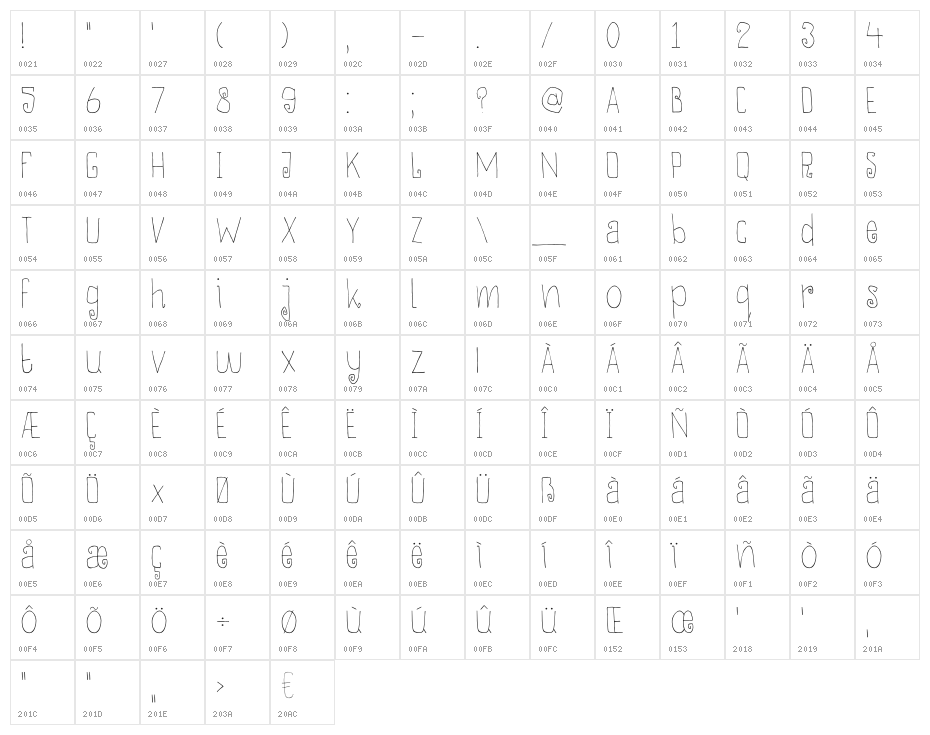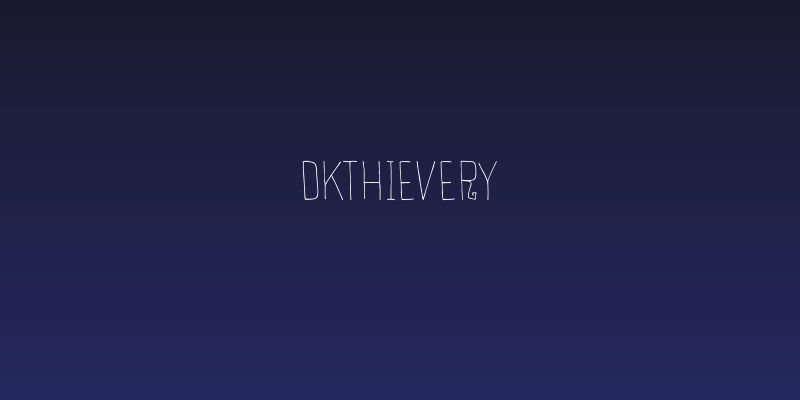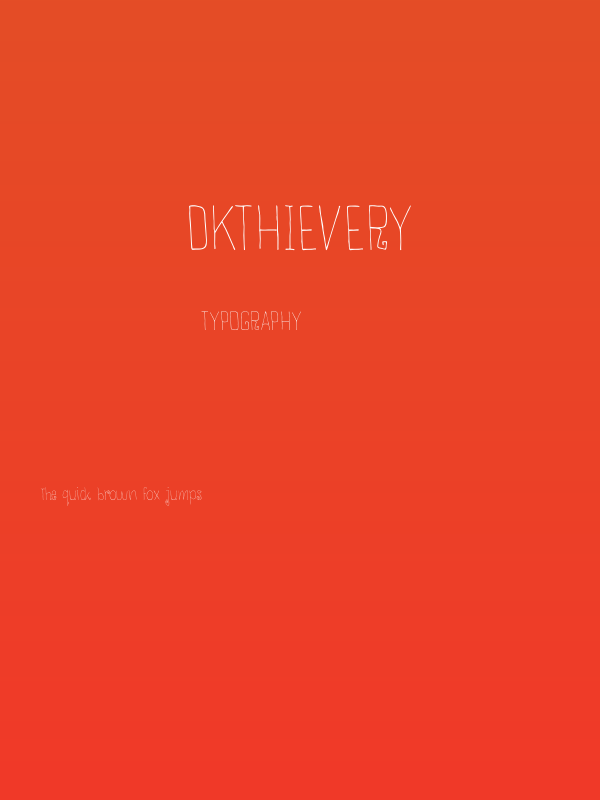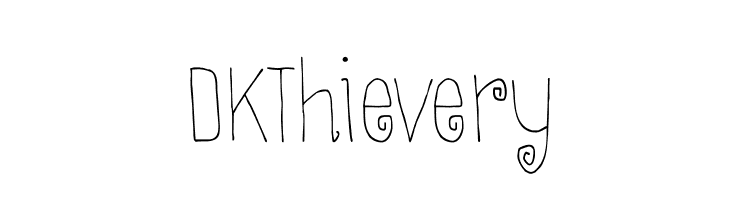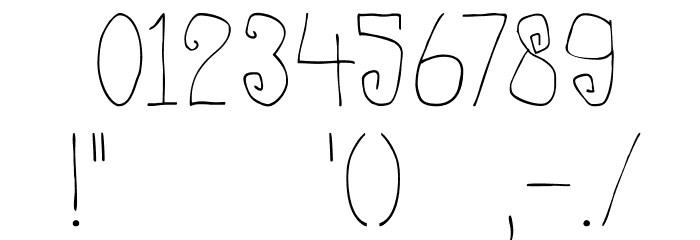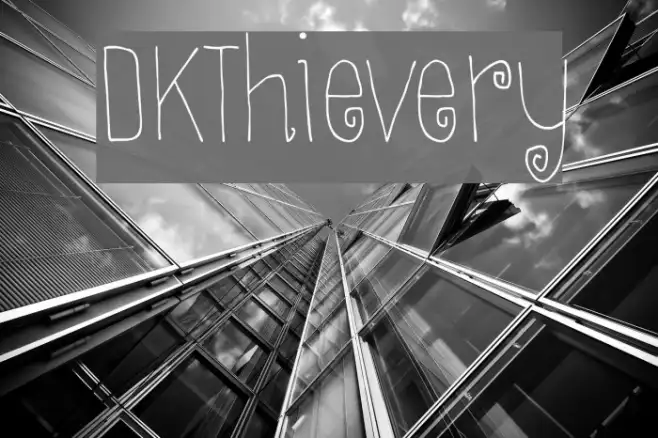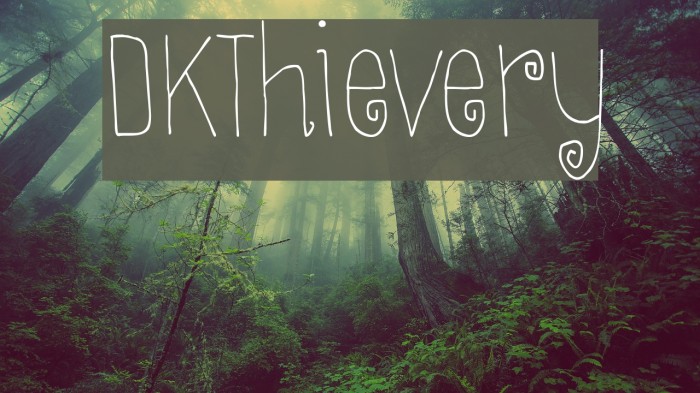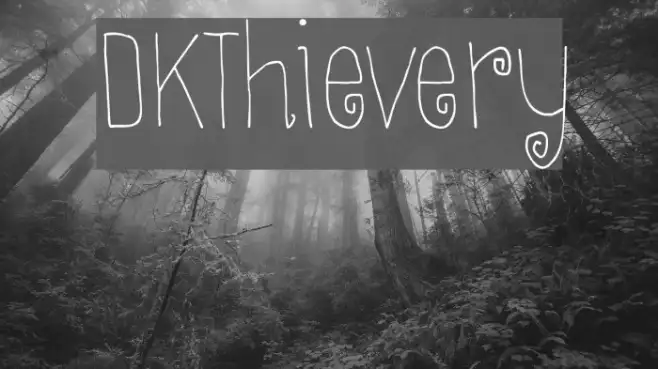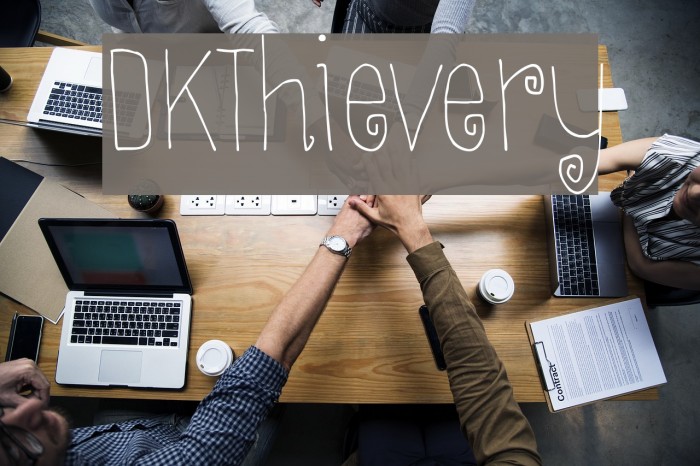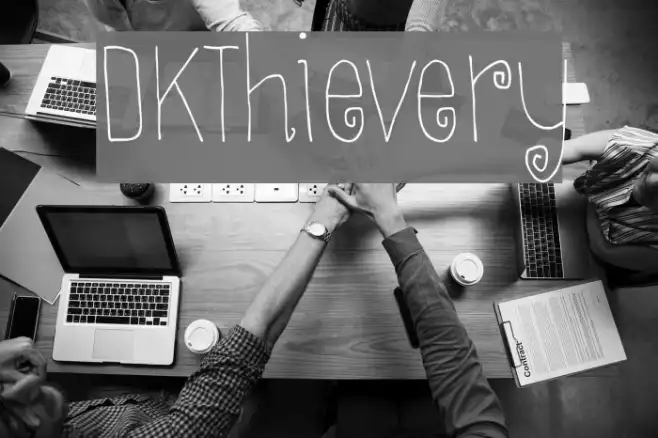
DKThievery Font
DKThievery Description
This font features a whimsical and playful design with a hand-drawn aesthetic. The characters are tall and narrow, with a unique twist or curl on certain letters, adding a quirky and artistic flair. The strokes are thin and consistent, giving it a light and airy feel. The font maintains a casual and informal style, making it suitable for creative and fun projects. The numbers and special characters follow the same playful design, ensuring a cohesive look across all elements.
| Proposed Projects | Ideal for children's books, greeting cards, playful branding, and creative posters. |